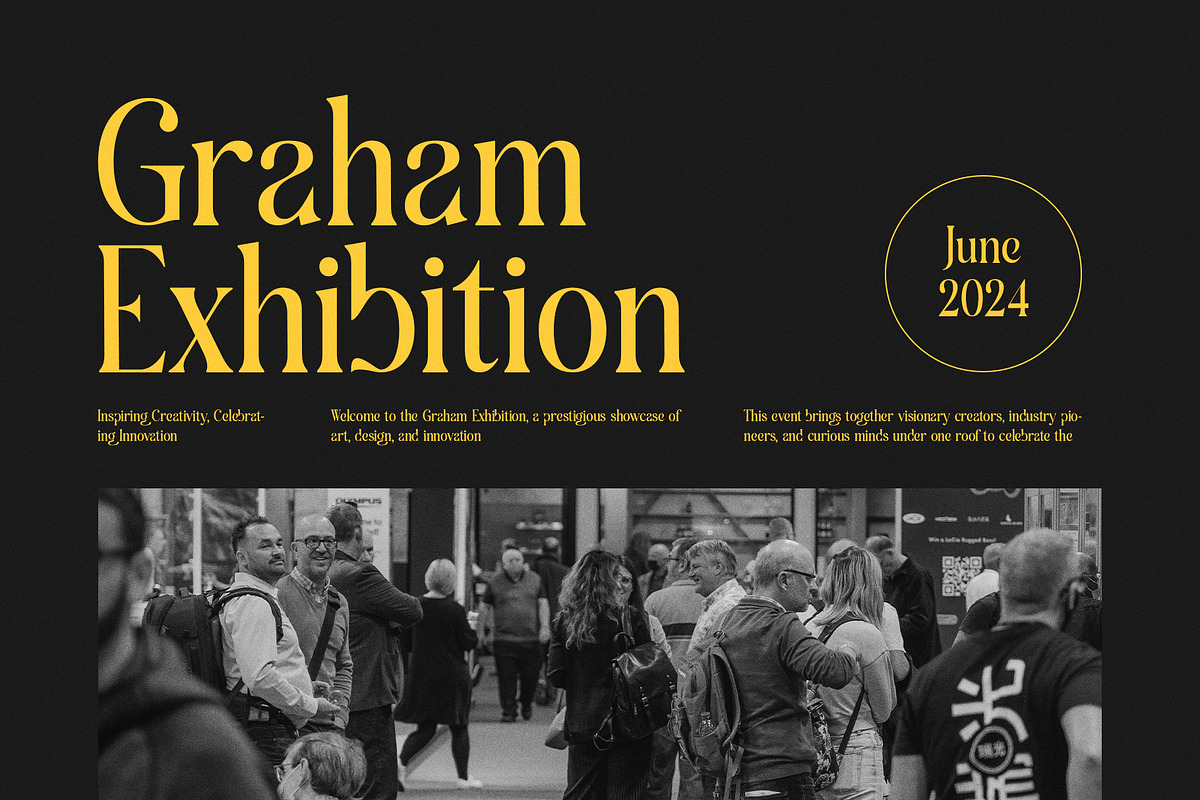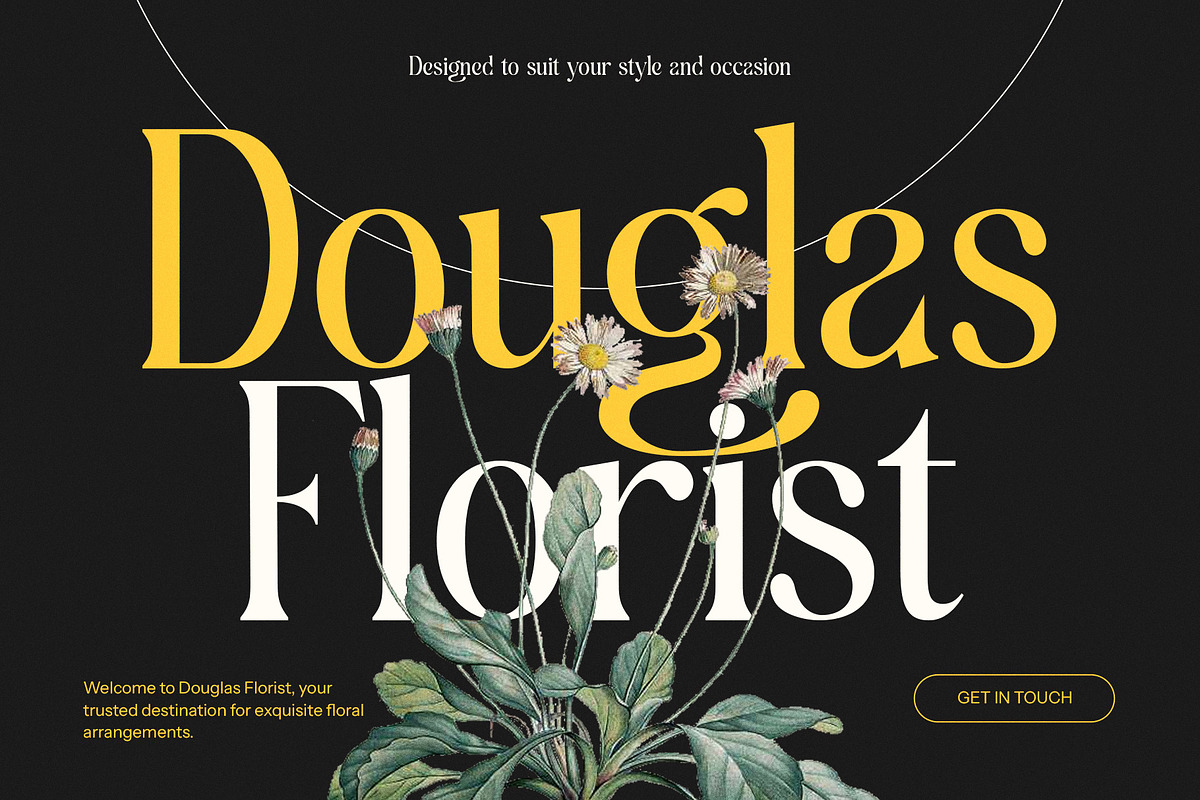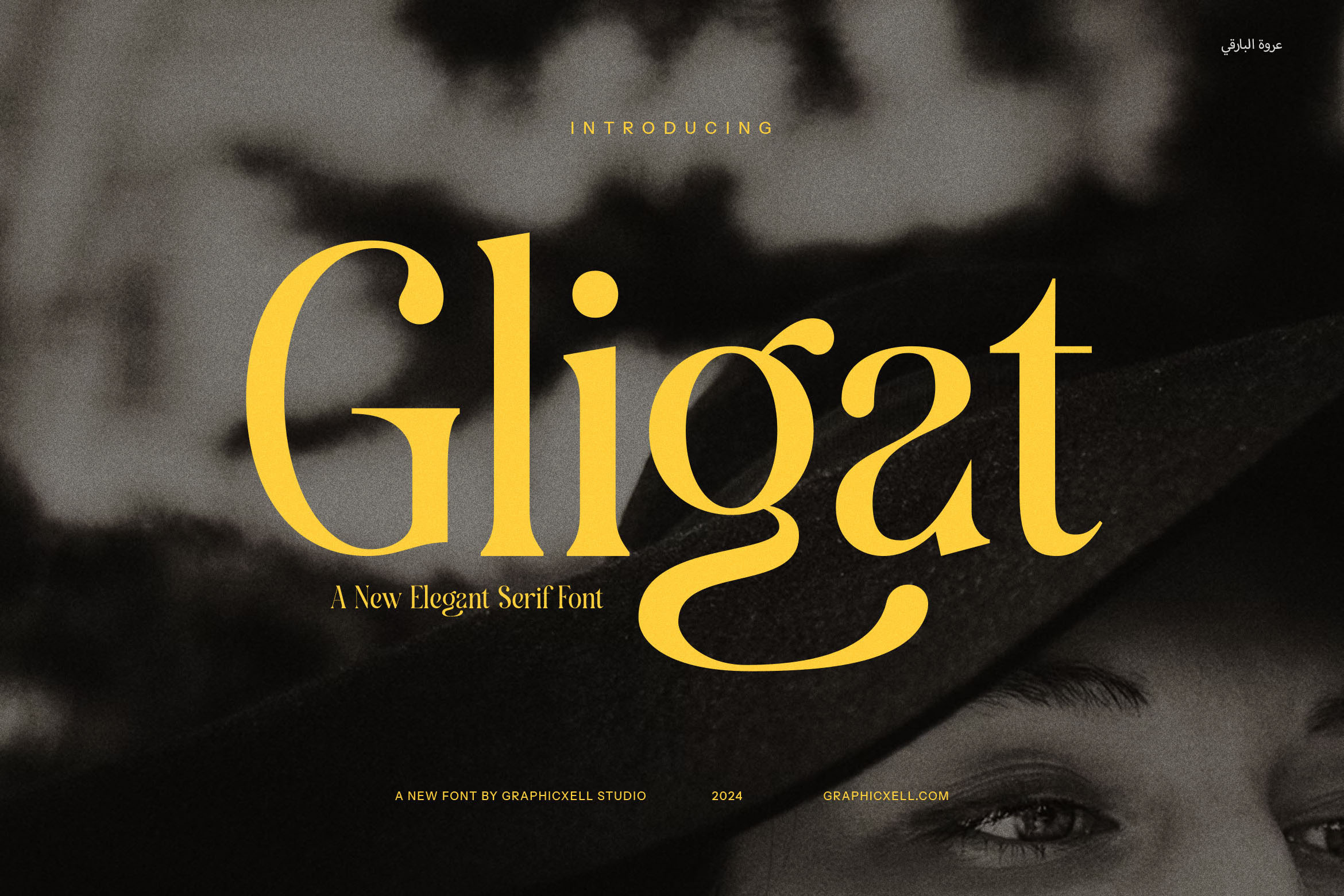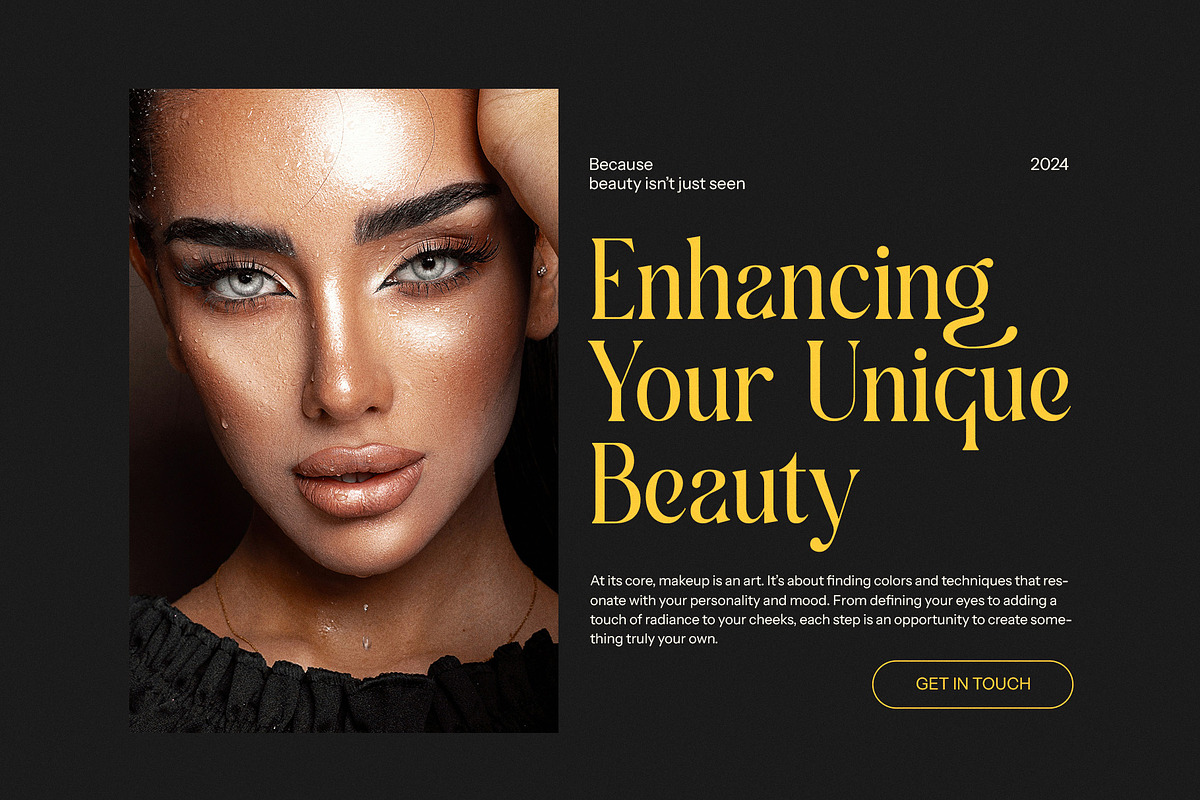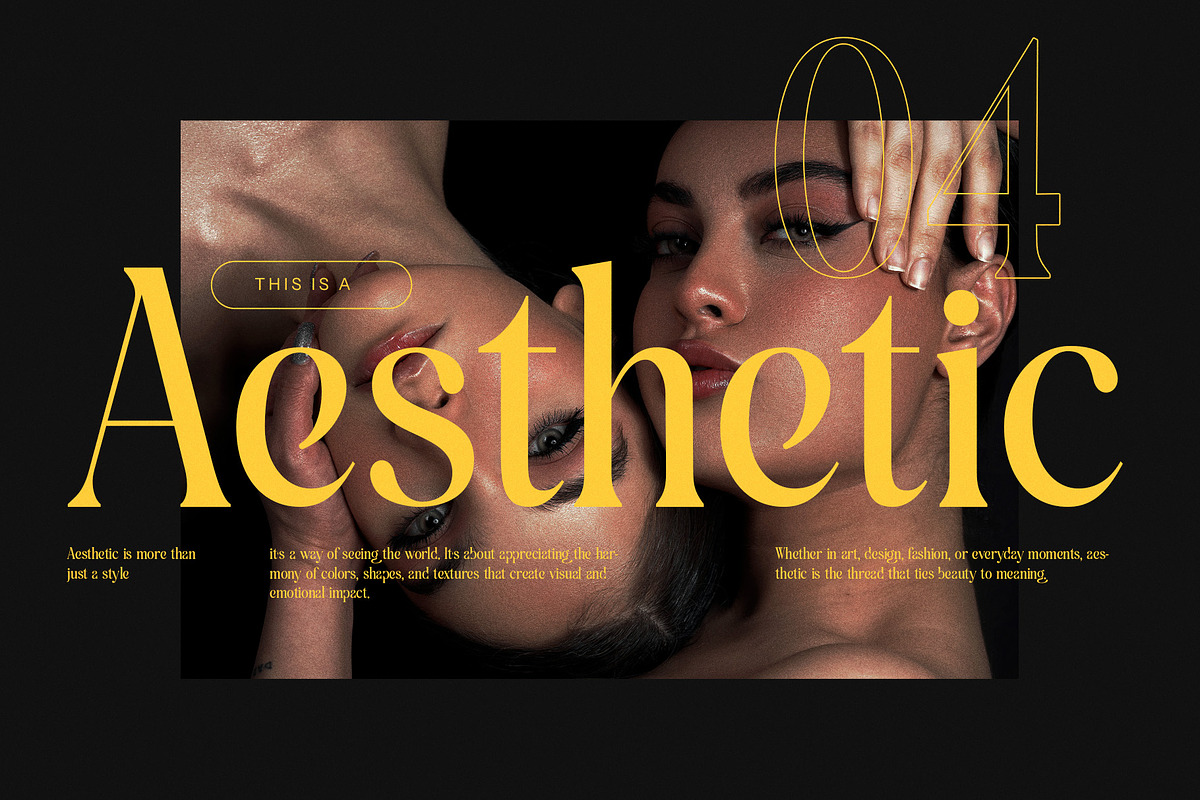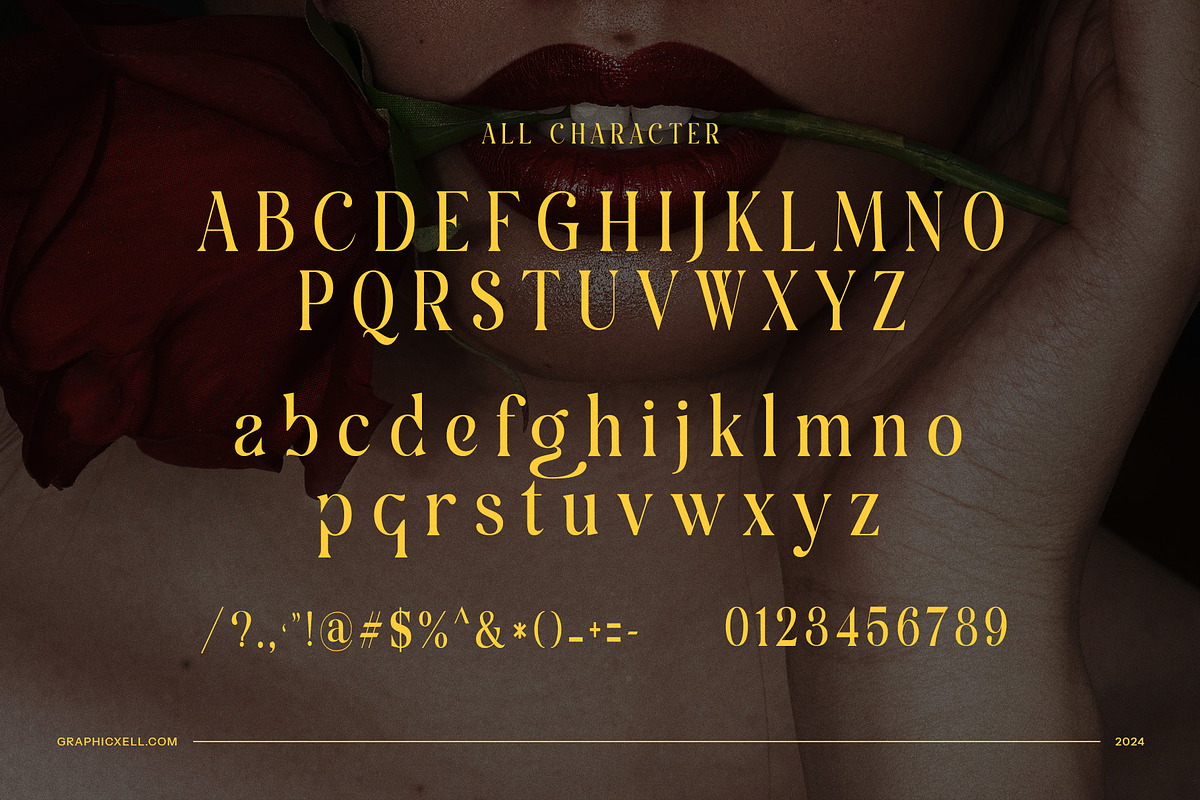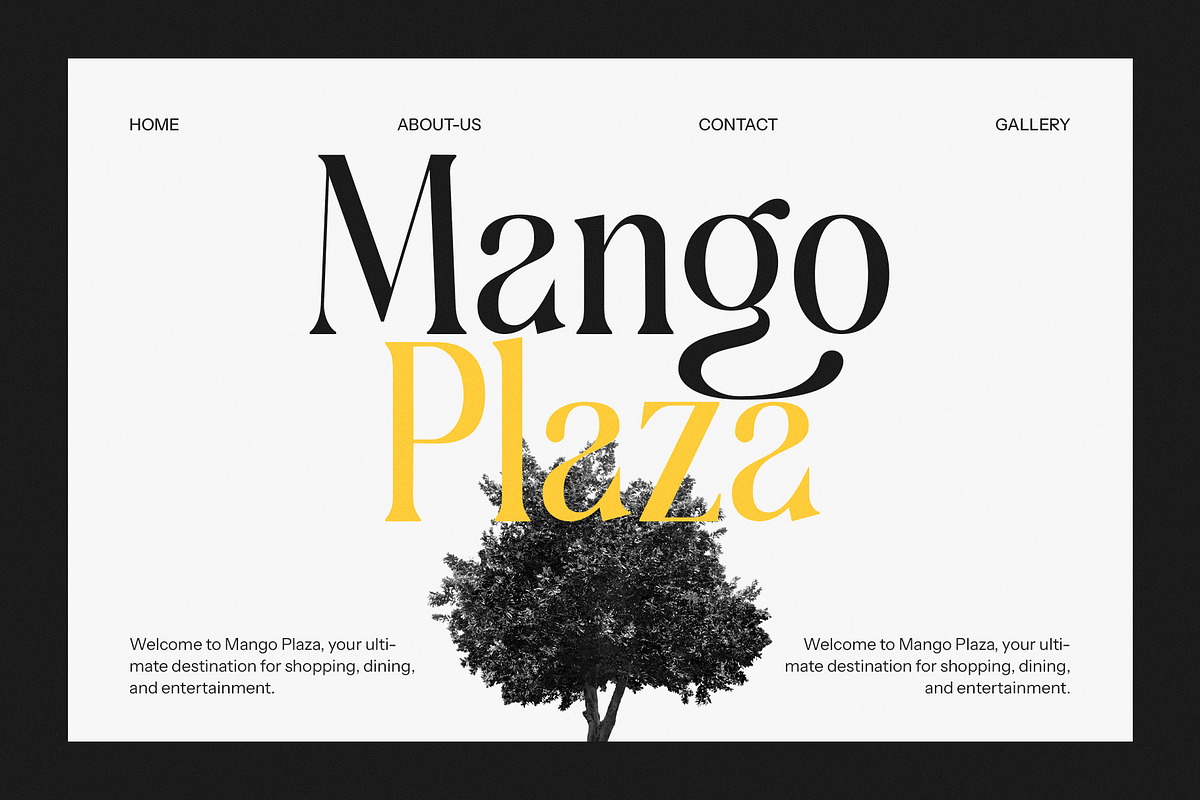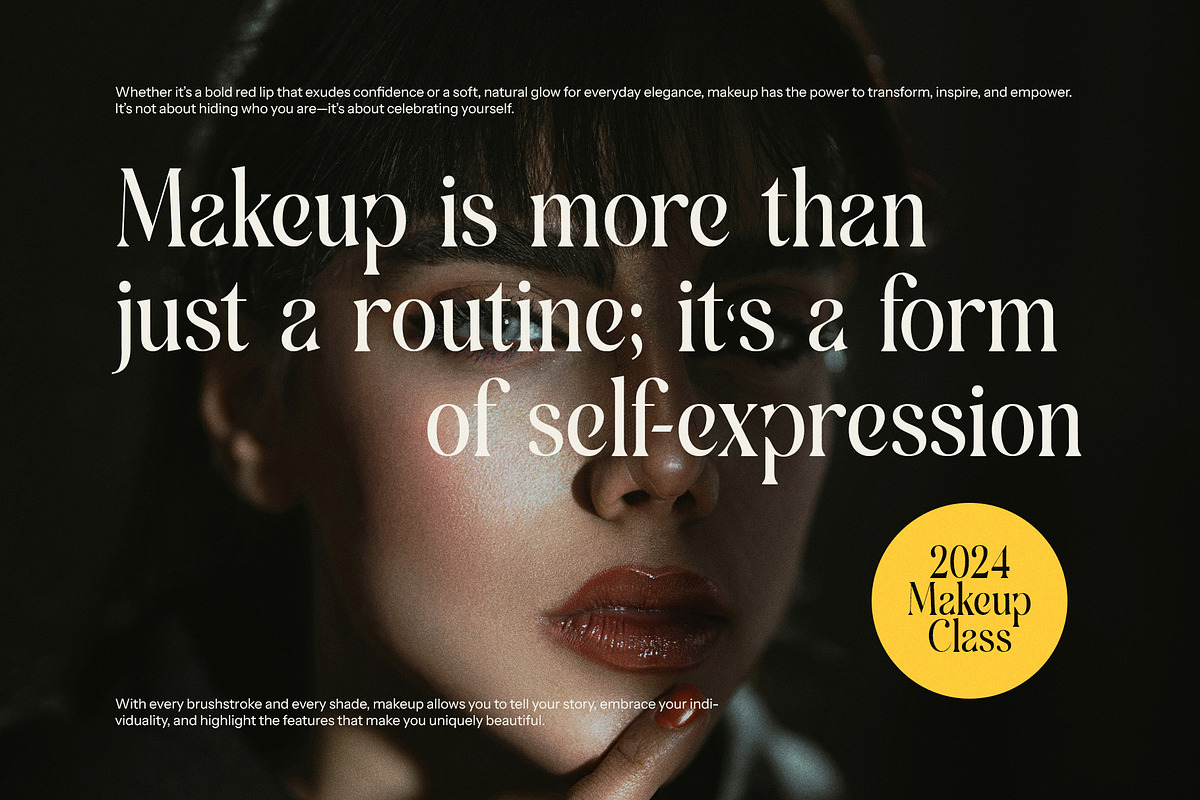
Gligat - Elegant Serif Font
Gligat Elegant Serif Font is a refined and contemporary typeface that combines modern design sensibilities with timeless elegance. Its unique serifs and carefully crafted letterforms make it stand out, offering a sophisticated touch for any design project. With its sleek and stylish appeal, Gligat is perfect for a variety of creative applications, from logos to brand identities, and everything in between.
Ideal for upscale branding, Gligat Elegant Serif Font brings a sense of luxury and professionalism to any design. Its balanced proportions and elegant detailing make it perfect for use in logos, business cards, and product packaging, ensuring your brand leaves a lasting impression. The font’s versatility extends across various platforms, making it a great choice for websites, magazines, brochures, and advertisements where both style and readability are essential.
Gligat shines in industries such as fashion, lifestyle, and high-end products, where a polished and refined aesthetic is crucial. Its clean, sophisticated look makes it especially suited for boutique brands, food labels, and other premium businesses. Whether you're creating an elegant magazine layout or crafting an eye-catching advertisement, Gligat adds an element of class that elevates the entire design.
Designed for both print and digital formats, Gligat Elegant Serif Font ensures your message is communicated with clarity and elegance, no matter the medium. If you’re seeking a font that exudes modernity, sophistication, and versatility, Gligat is the perfect choice to elevate your designs and capture attention with timeless style.